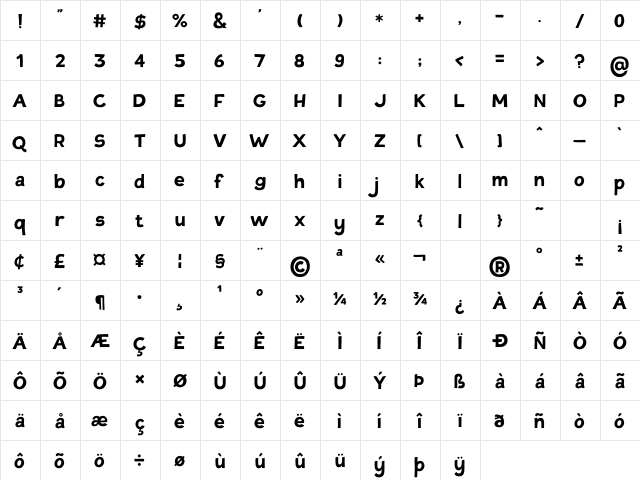
Tovari Sans Bold
| Designer | Verneri Kontto |
Design Context for Tovari Sans Typeface
Tovari Sans is a composed and adaptable typeface that performs quietly and consistently across a wide range of design contexts. Its bold stroke weight gives it real presence on the page.
Pro Tip: Use Tovari Sans in both headline and body roles to test its range before committing to a single application.